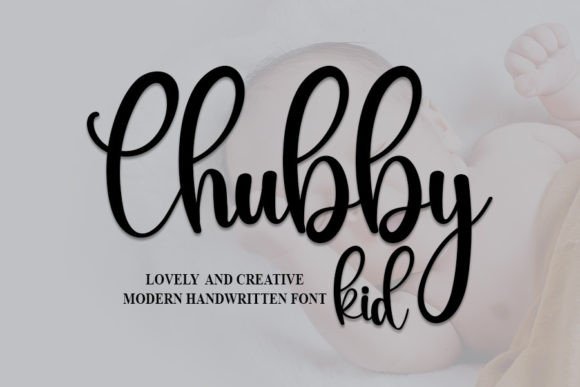
Unleash the captivating charm of Chubby Kid Font, a delightful script that will add a touch of playfulness and warmth to your business emails. Crafted by the talented K_IN Studio, this font exudes a friendly and approachable vibe, perfect for fostering meaningful connections with your clients and colleagues.
Chubby Kid Font's meticulously crafted characters dance across the screen, resembling the effortless flow of a handwritten note. Its graceful curves and playful strokes create a visually appealing aesthetic that is sure to leave a lasting impression. With its unique personality, Chubby Kid Font has the power to transform ordinary emails into extraordinary expressions of professionalism and creativity.
Embrace the playful spirit of Chubby Kid Font and watch as your business emails come alive with character and charm. Its ability to convey warmth and approachability will set you apart from the mundane and make your messages truly memorable. Experience the joy of sending emails that resonate with your audience, building stronger relationships and fostering a sense of connection.
Whether you're crafting a professional proposal, sending a friendly update, or simply reaching out to say hello, Chubby Kid Font is the perfect companion. Its versatility knows no bounds, adapting seamlessly to various email formats and purposes. Let your words dance with delight as this whimsical font adds a touch of magic to your digital communications.
Join the growing community of professionals who have discovered the transformative power of Chubby Kid Font. Elevate your business emails to new heights of engagement and professionalism. Experience the joy of sending emails that captivate, inspire, and build meaningful connections.